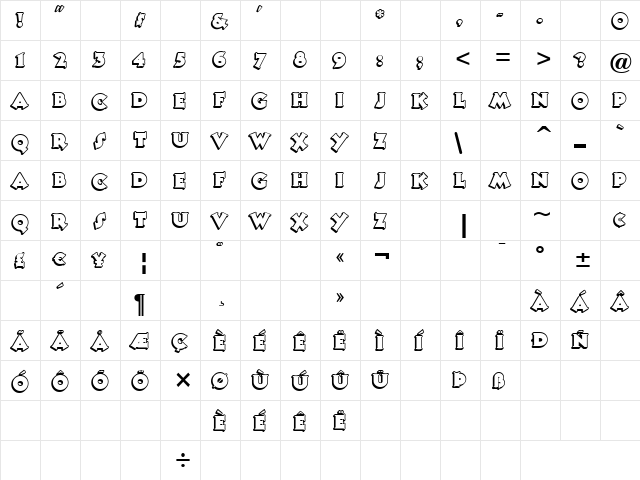
Tooney Noodle Outline Regular Font Preview
Tooney Noodle Outline Regular
Tooney Noodle Outline Regular Font Details
Design Context for Tooney Noodle Outline Typeface
Tooney Noodle Outline is built around its visual character rather than neutral utility — its distinctive forms are designed to make an impression at display sizes.
Font Pairing: Pair with a clean neutral sans-serif for body copy to let Tooney Noodle Outline's character lead without overwhelming the composition.
Pro Tip: Use Tooney Noodle Outline exclusively at display sizes — it was designed to be seen, not read at length. Let a neutral companion handle body copy.